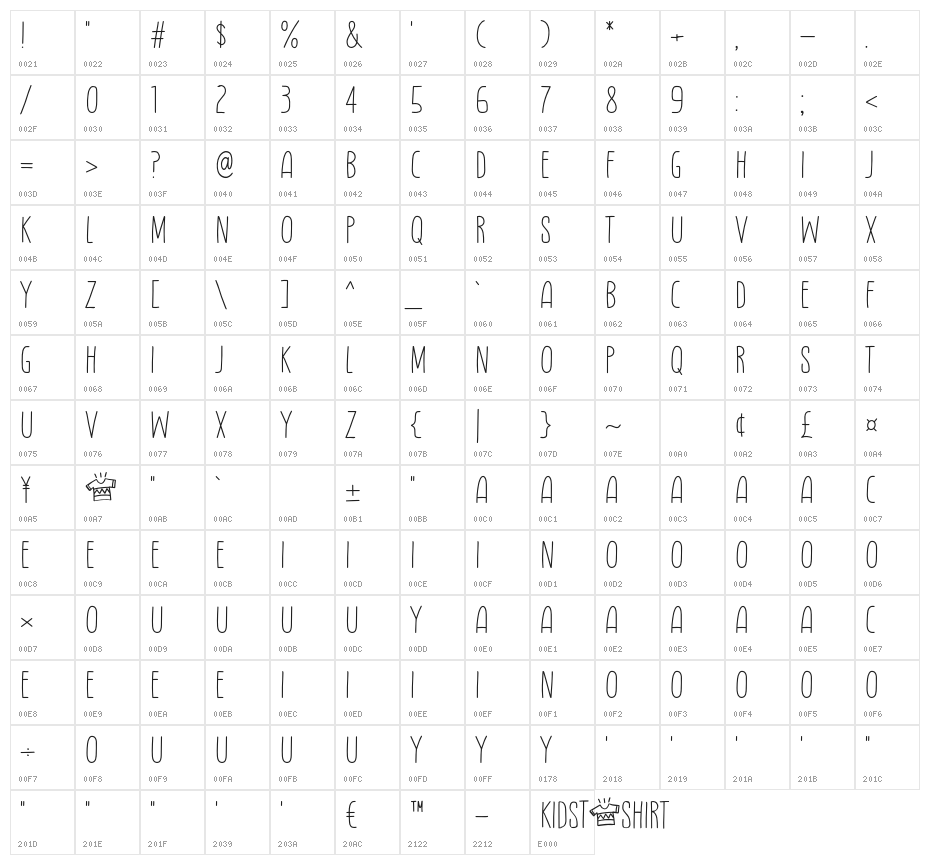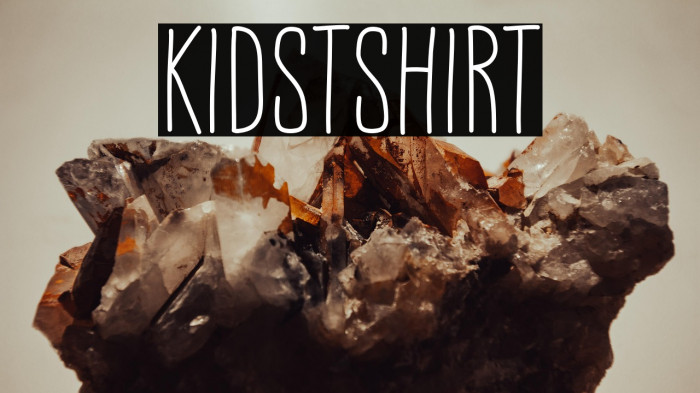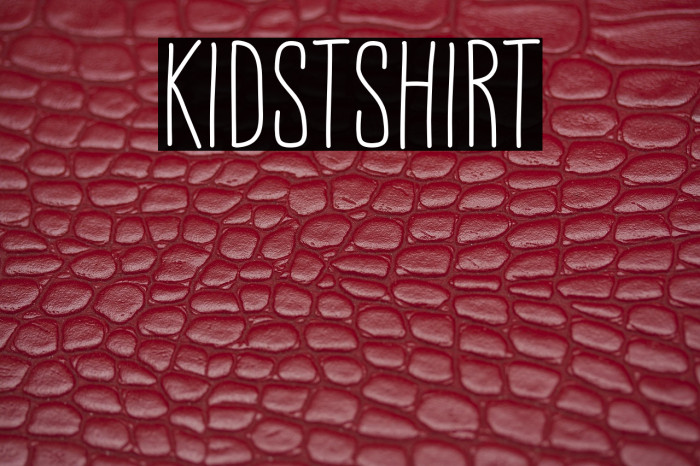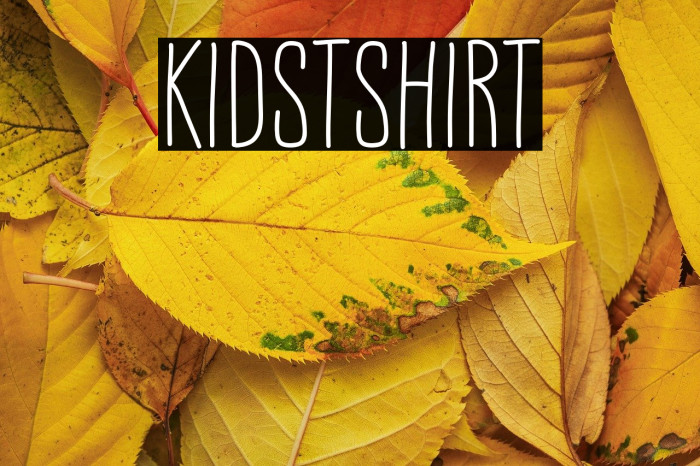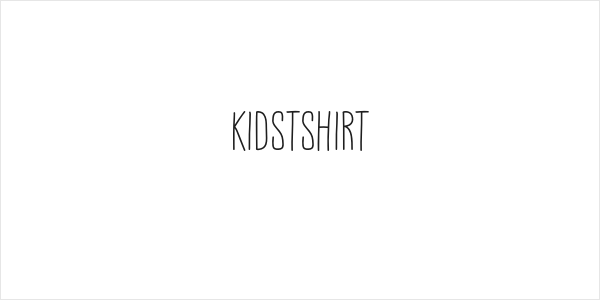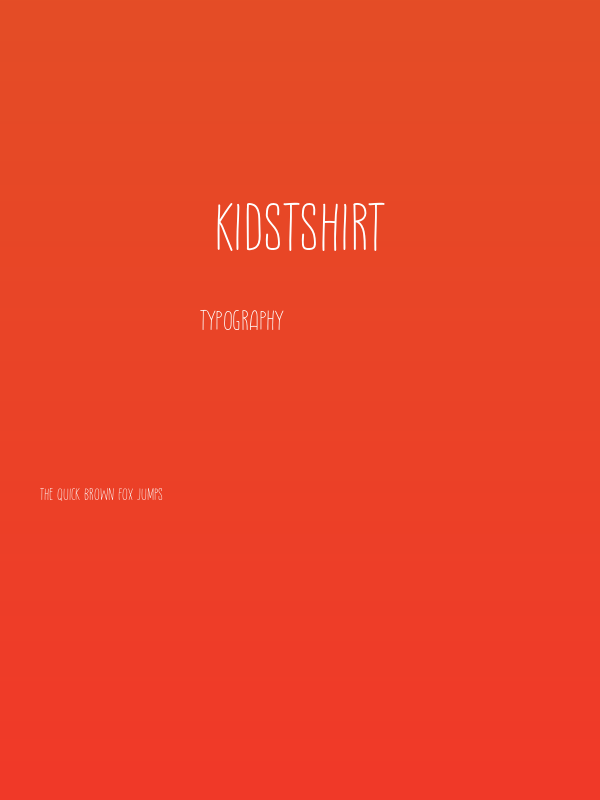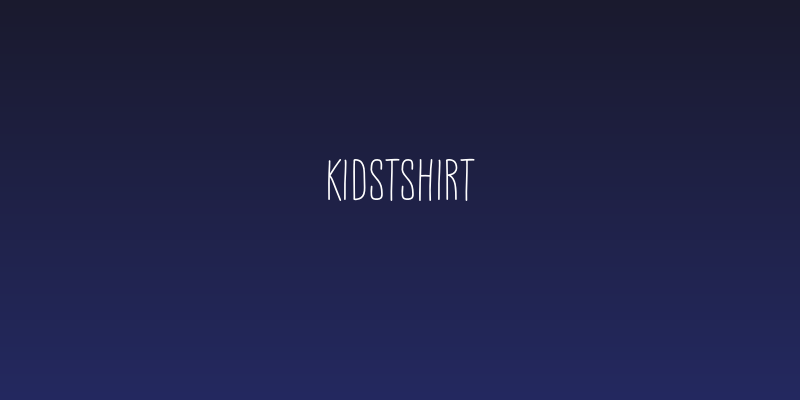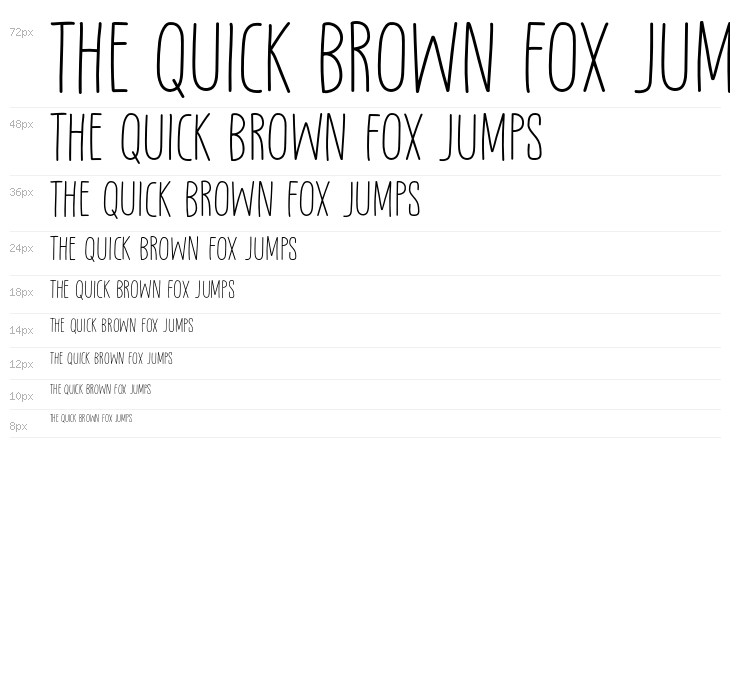
Kidstshirt Font
Kidstshirt Description
This playful and whimsical font features tall, narrow letters with a hand-drawn appearance, giving it a friendly and approachable vibe. The characters are slightly irregular, adding to the charm and uniqueness of the style. The font maintains a consistent stroke width, providing a clean and modern look. Its simplicity and readability make it suitable for a variety of applications, especially those aimed at children or casual settings. The inclusion of numbers and special characters ensures versatility in design projects.
| Use Case | Headlines, Logos, Children's materials |
| Proposed Projects | Ideal for children's books, playful branding, greeting cards, and casual event invitations. |